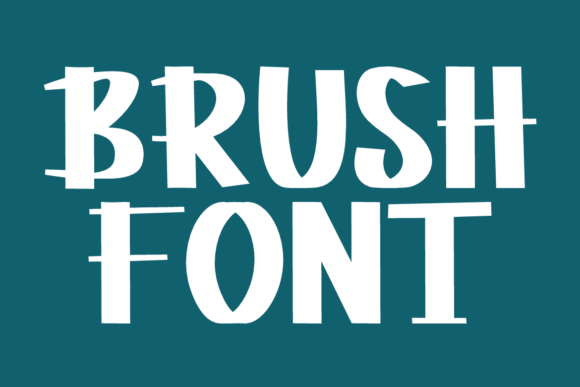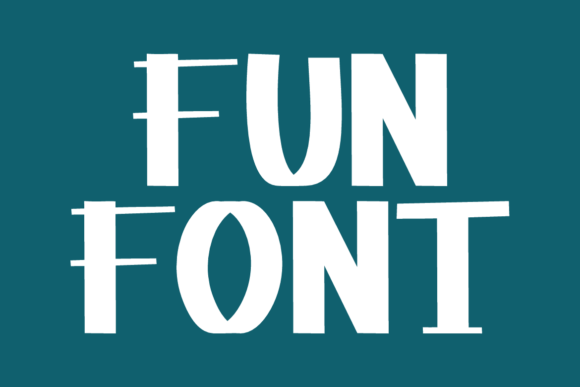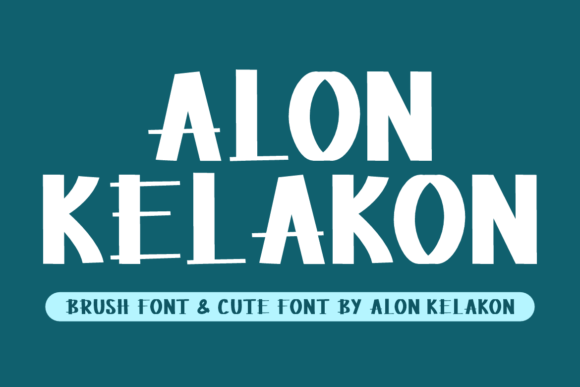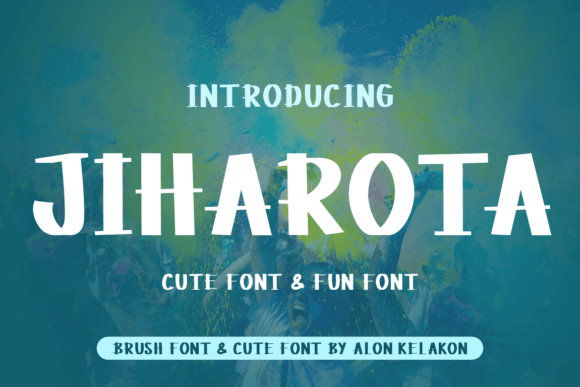
Introduction to Jiharota Font
Jiharota is a sweet and friendly handwritten font.
Why Choose Jiharota Font?
Jiharota Font offers exceptional quality and versatility, making it a valuable addition to your design toolkit. Whether you’re creating for personal projects or commercial use, Jiharota Font delivers professional results.